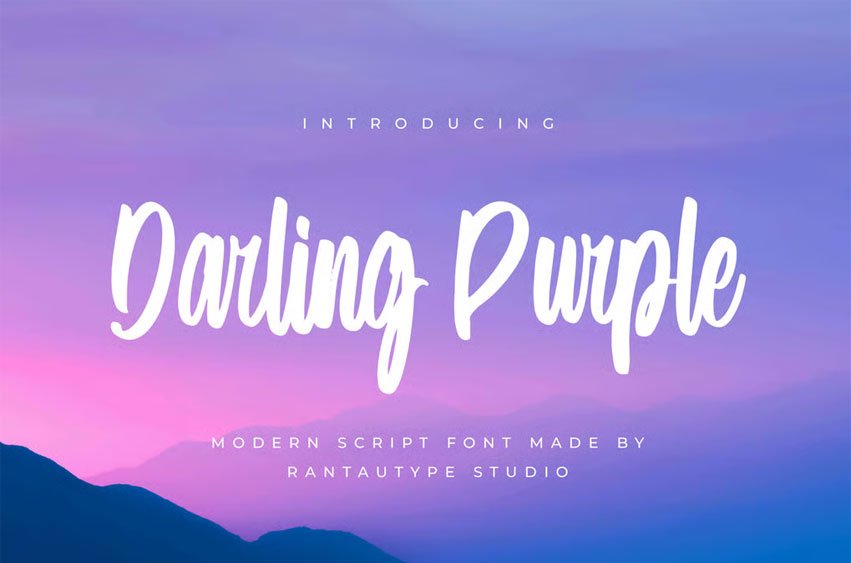
Darling Purple Font is a modern script font made by Rantautype Studio. Darling Purple is a perfect choice for any creative endeavor, chic lifestyle design, such as logotype, advertisements, watermark on photography, stationery, branding project, display and magazine, invitation, corporate brand, product design, label, business project, and many other projects with a modern touch.